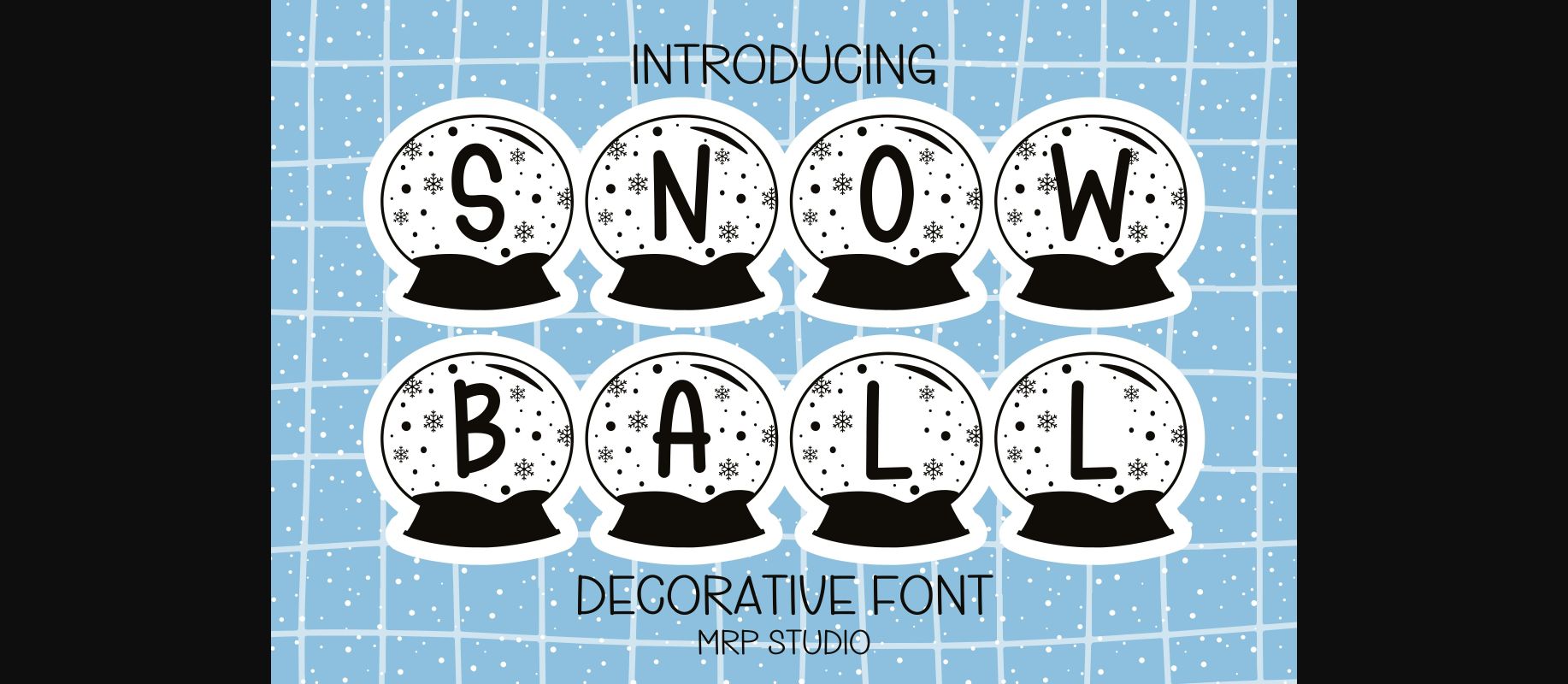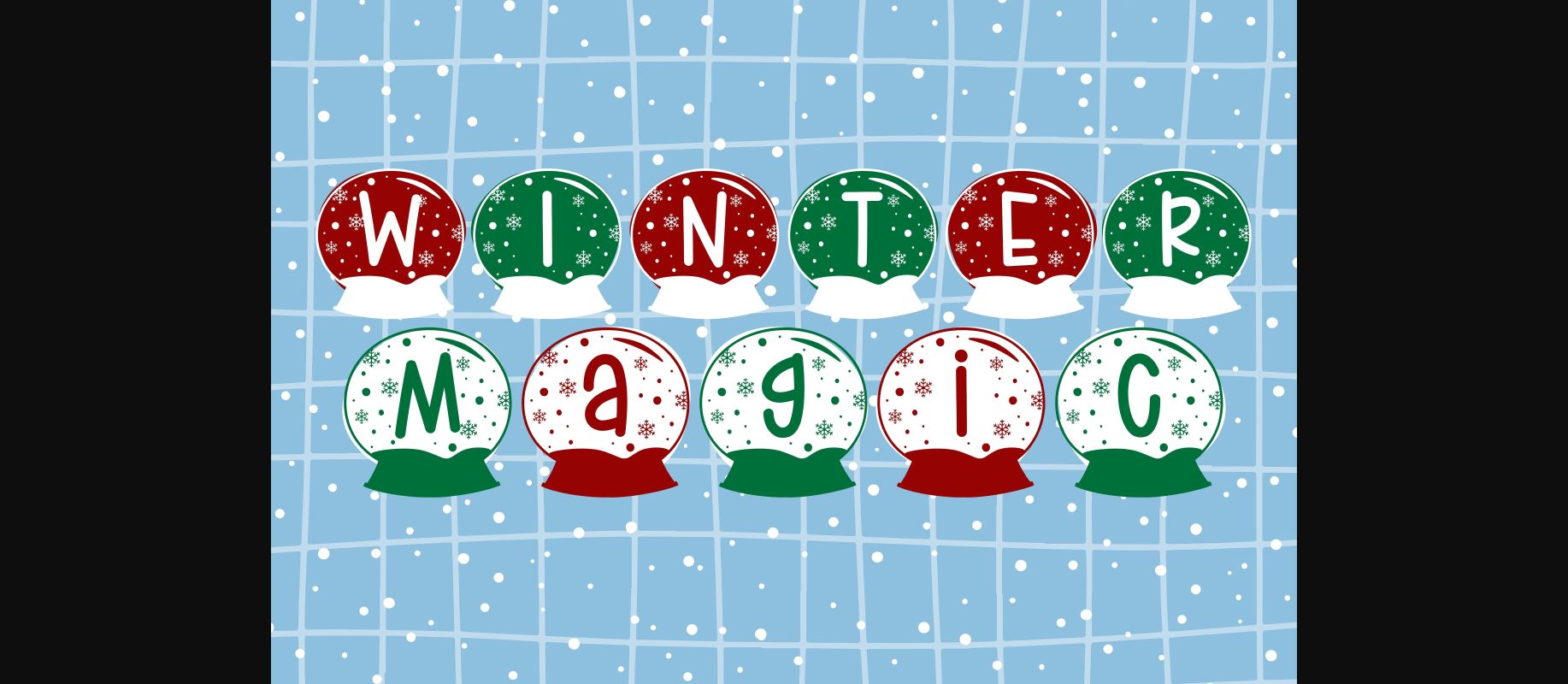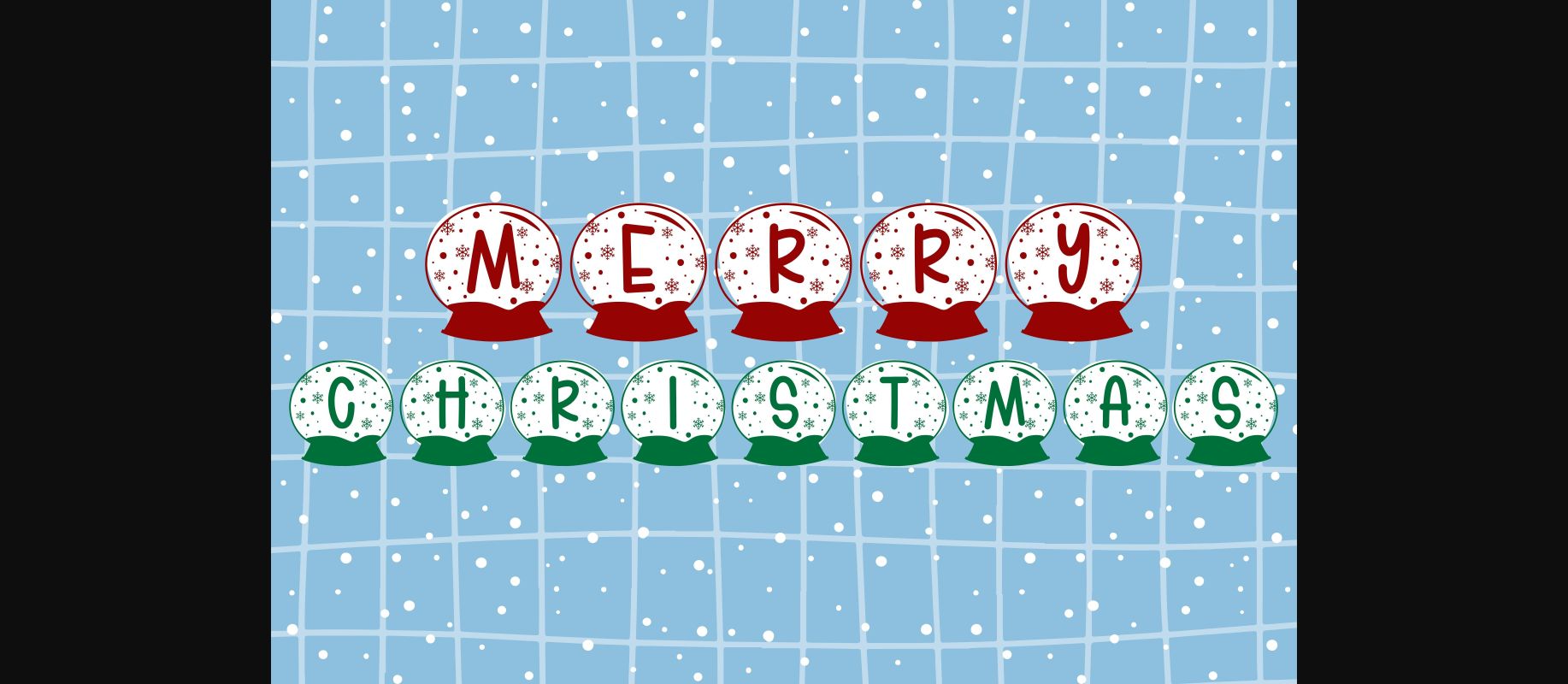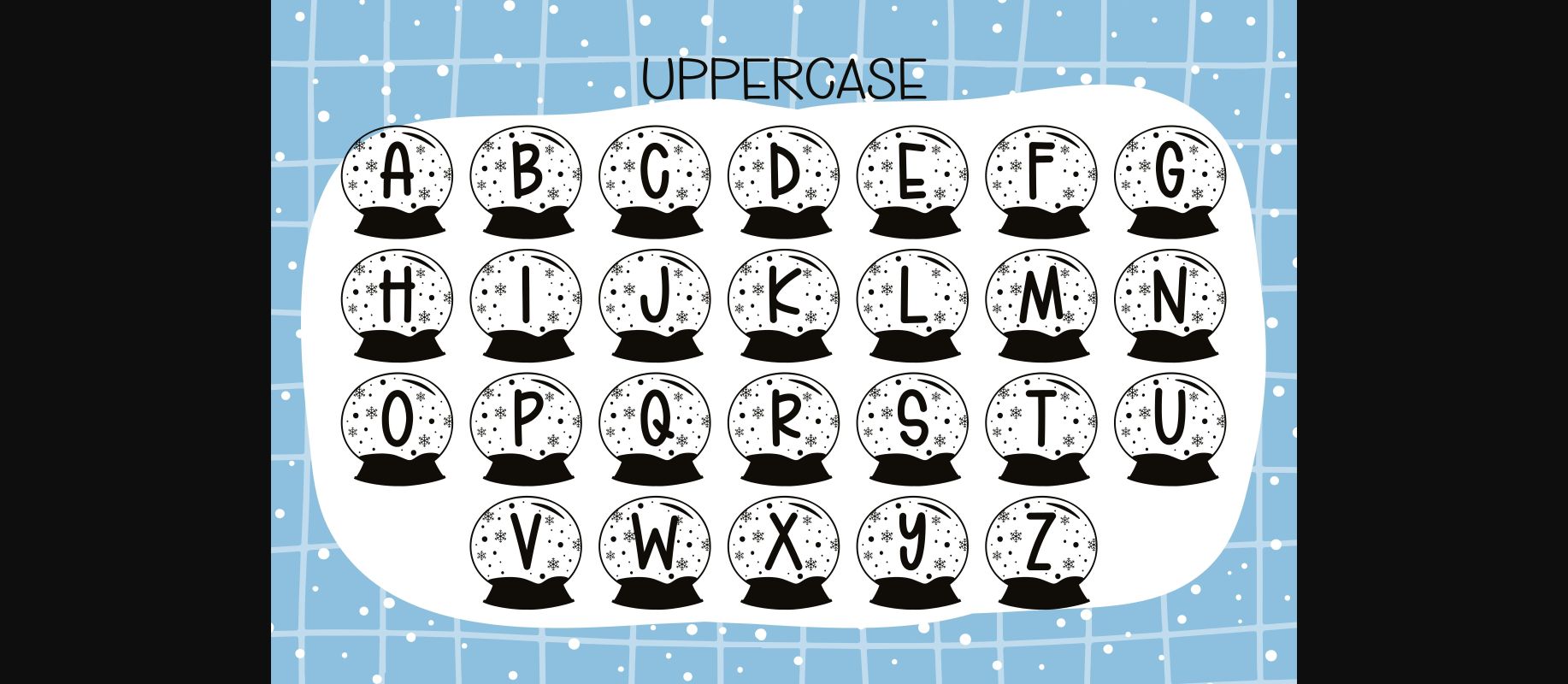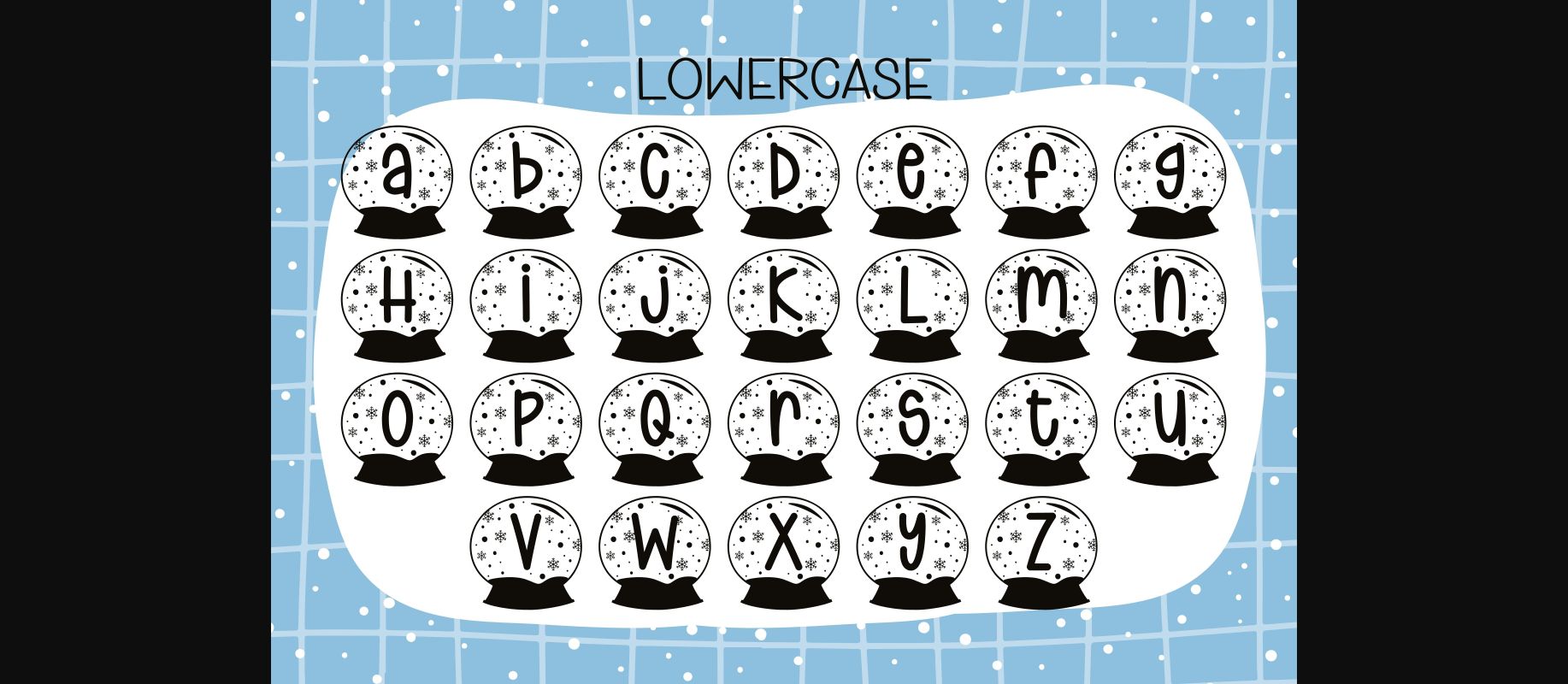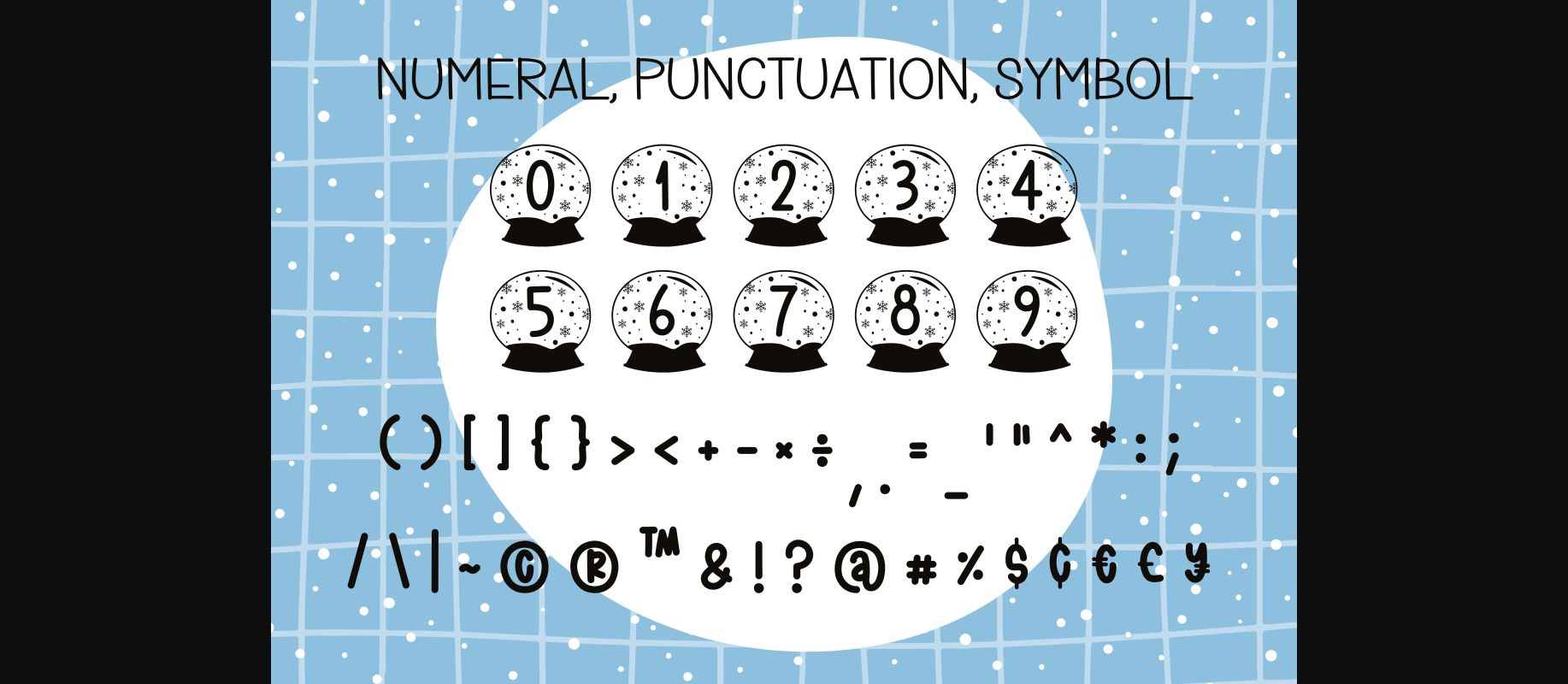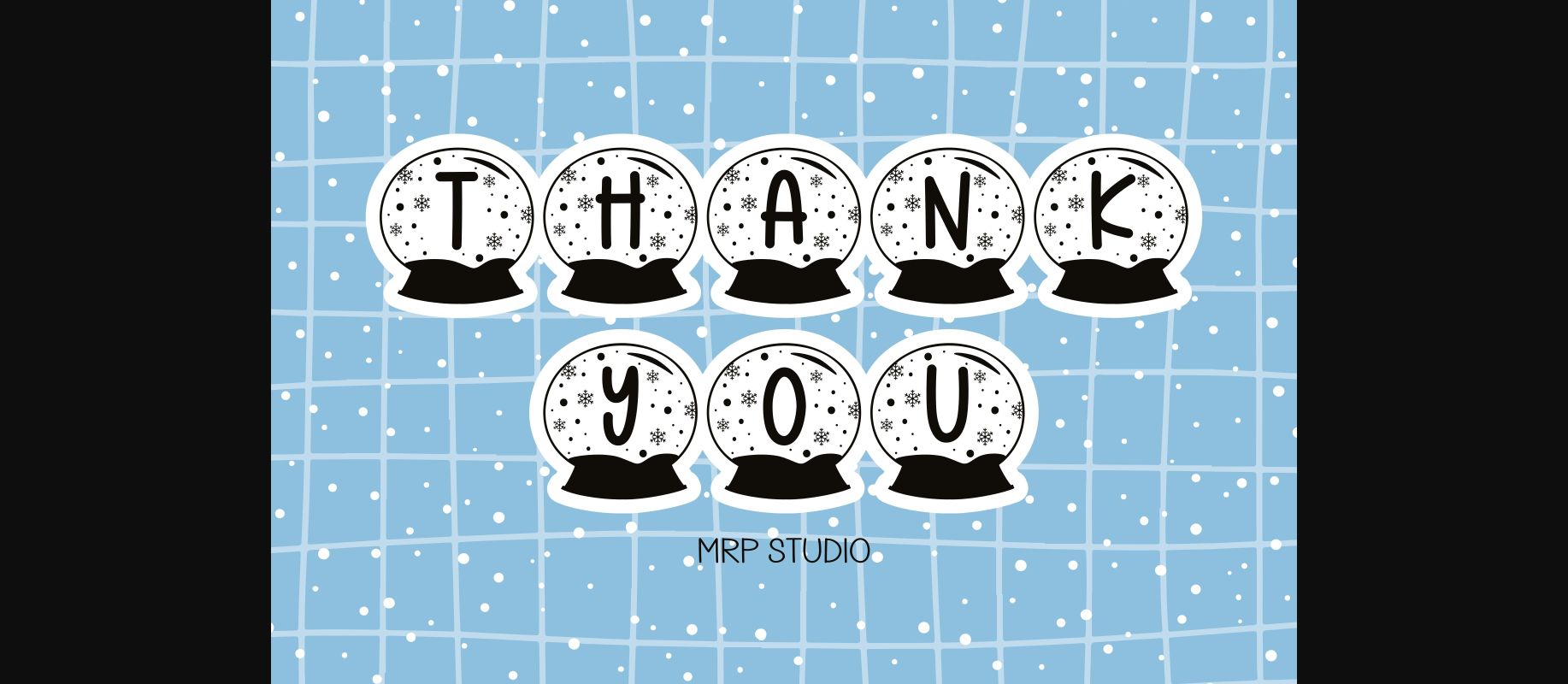
Snowball Font
About Snowball Font
Snowball is designed in a cute and adorable decorative font style. It would be an awesome addition to your colorful Christmas projects, mom projects, back-to-school, party decorations, invitations, posters, blogs, clothing, greeting cards, social media posts or anything that needs a friendly touch.